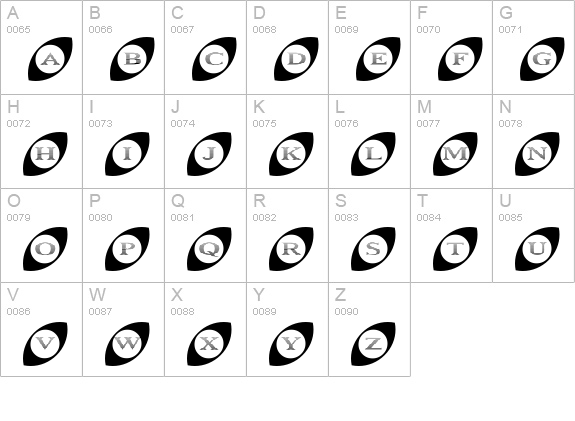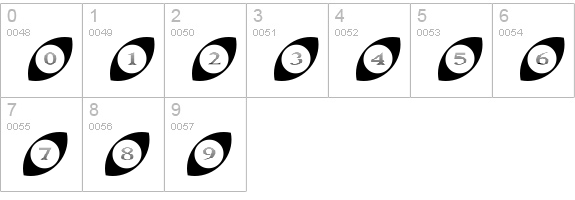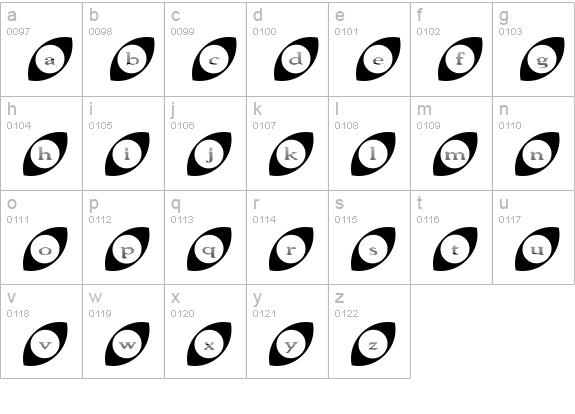
Wide Eyed is a distinctive, extended-width variant in the Wide typeface family \xE2\x80\x94 well suited to design and typography projects.
Introducing the captivating and expressive Wide Eyed font - a true masterpiece in the world of typography. This font is a perfect blend of modernity and elegance, showcasing a unique and eye-catching design that will instantly grab the attention of any reader. With its bold and sweeping letterforms, Wide Eyed font exudes a sense of confidence and sophistication, making it ideal for a wide range of creative projects. Whether you're designing a logo, creating stunning headlines, or crafting a stylish poster, this font will effortlessly elevate your work to new heights. What sets Wide Eyed font apart is not just its striking aesthetic, but also its versatility. It offers a range of alternate characters and ligatures, allowing you to customize your designs and add a personal touch. The carefully crafted curves and smooth lines make this font a joy to work with, ensuring that your typography stands out from the crowd. And the best part? Wide Eyed font is available for free! Yes, you read that right. This incredible font can be freely downloaded at FontsMarket.com, giving you the opportunity to bring your creative visions to life without breaking the bank. So why wait? Unleash your imagination and download Wide Eyed font today to experience the power of captivating typography like never before.